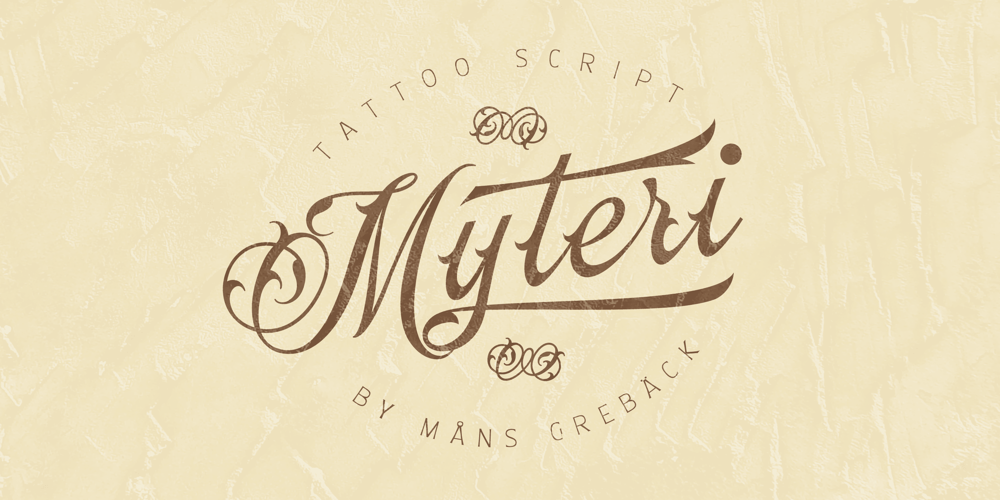
Myteri Tattoo
Myteri Tattoo font
Myteri Tattoo Font Family was designed by Måns Grebäck and published by Mans Greback. Myteri Tattoo contains 3 styles and family package options. Myteri is an expressive tattoo script font. Drawn and created by Mans Greback in 2021, this lettering has a wild rock’n’roll style and a tough personality, with graffiti-inspired calligraphy and vivid movements.To make swashes, use [ ] { } _ anywhere in a word. Example: Tatt_oosWrite multiple [ ] { } to make swashes of different lengths. Example: Super[[[star(Download required)The font is built with advanced OpenType functionality and has a guaranteed top-notch quality, containing stylistic and contextual alternates, ligatures and more features; all to give you full control and customizability. It has extensive lingual support, covering all European Latin-based languages.It contains all characters and symbols you’ll ever need, including all punctuation and numbers.